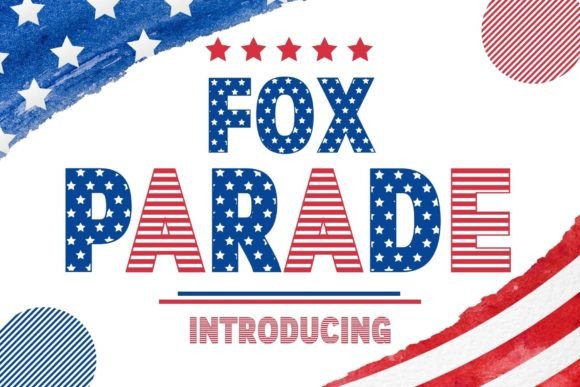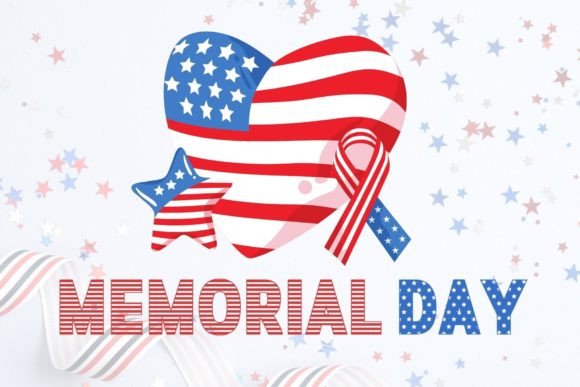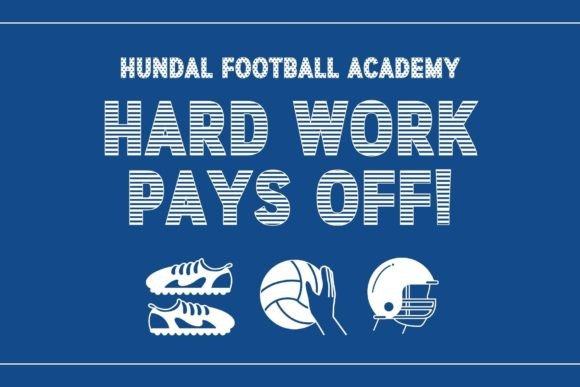
Fox Parade Font: A Patriotic Display Font for Cricut & Crafts
About the Fox Parade Font
Presenting Fox Parade Font, a unique and stylish typeface that will make your work stand out. Fox Parade is a font that has a stars and stripes pattern in the letters. This decorative font is perfect for projects that celebrate American culture, history, or events such as Independence Day, Veterans Day, or Memorial Day. It can be used to create impactful headlines, banners, or signage, infusing a sense of national pride and identity into any design.
Fox Parade’s bold, celebratory style is ideal for headlines, posters, and short-form branding elements where a strong visual impact is desired. It works exceptionally well for patriotic-themed projects and designs celebrating American holidays. However, its decorative nature makes it unsuitable for body text or UI elements requiring high readability. Long blocks of text set in Fox Parade would be difficult to read.
To complement its energetic personality, pair Fox Parade with a clean sans-serif like Open Sans for body copy, or a classic serif like Garamond for a more refined aesthetic. A simple geometric sans-serif such as Futura would also create a strong contrast and highlight the font’s decorative qualities.
The font projects a feeling of energetic patriotism and festive celebration, making it an excellent choice for brands associated with Americana, national pride, or celebratory events. Avoid using it for projects requiring subtlety or a sophisticated, minimalist feel.
Fox Parade Font Usage Examples
Fox Parade Font Example